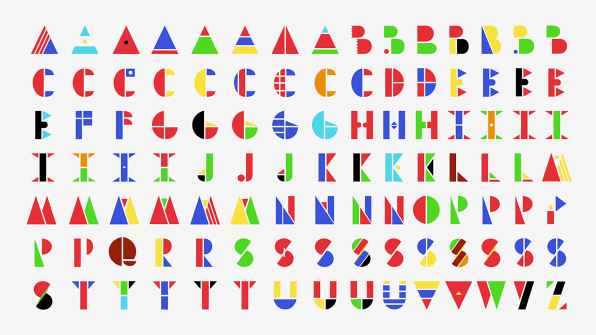
Thanks to a certain soccer tournament, the world is in the mood for creative forms of patriotism, whether it comes as debate over a new team uniform or a bank commercial.
Agency Grey Singapore is tapping the mood with a stylish mash-up of flags and typography that transforms the flags of every country on the globe into the first letter of that nation’s name. Each flag is broken down to its basic elements, shapes, and colors and reconfigured to reflect that country’s letter. But because many countries start with the same letter, this alphabet has 106 letters. The “Multi-National Typeface” is meant to reflect the agency’s multi-cultural design team that hails from 12 countries, with work experience across 49 nations and has business in 106 markets.
It also gives design nerds a chance to cheer and show some patriotism without having to watch a single soccer game.